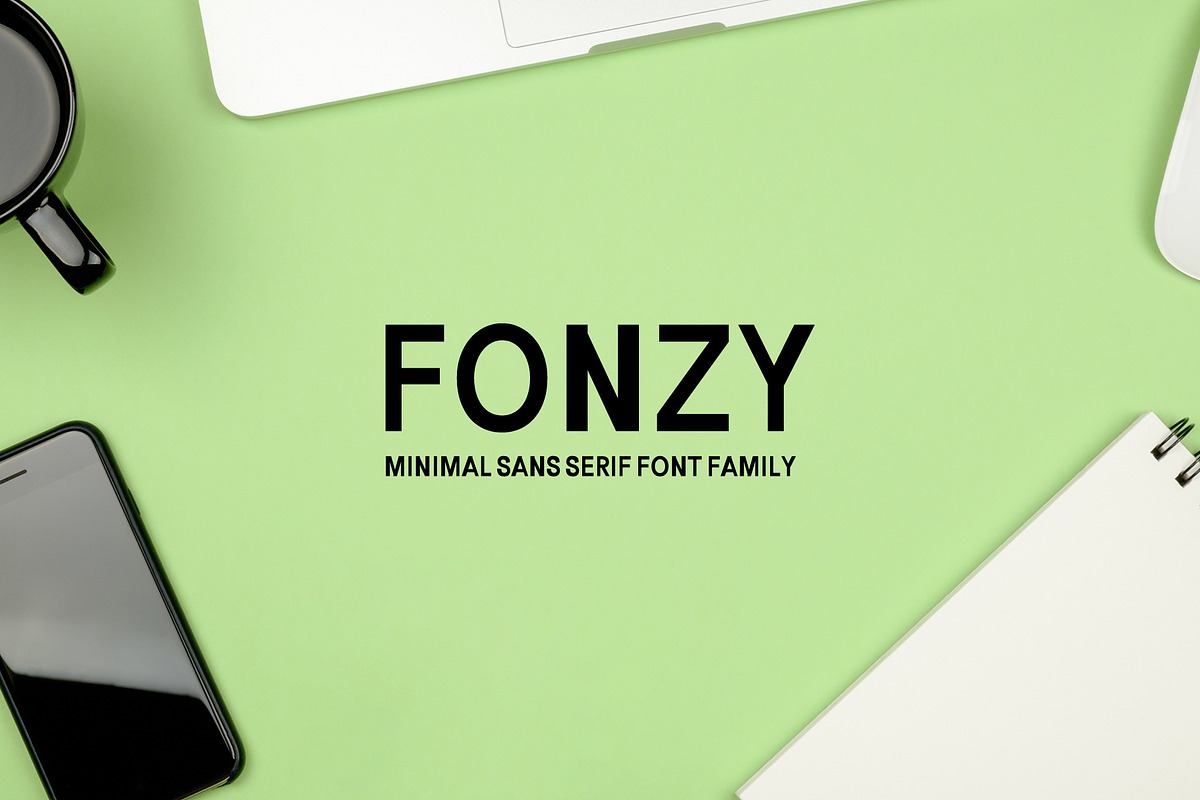
Fonzy Minimal Sans Serif Font Pack Free Download is a clean, sleek, and highly versatile typeface collection designed for modern branding and editorial excellence. With its minimalist letterforms and well-balanced geometry, Fonzy is perfect for logos, fashion lookbooks, websites, packaging, tech startups, and UI/UX design. This pack typically includes multiple weights, giving you flexibility for both headlines and body text.
Using the Fonzy Minimal Sans Serif Font Pack Free Download adds a refined, contemporary edge to any project. Whether you're crafting a minimalist portfolio, a cutting-edge product label, or a stylish app interface, Fonzy delivers clarity, elegance, and visual consistency.